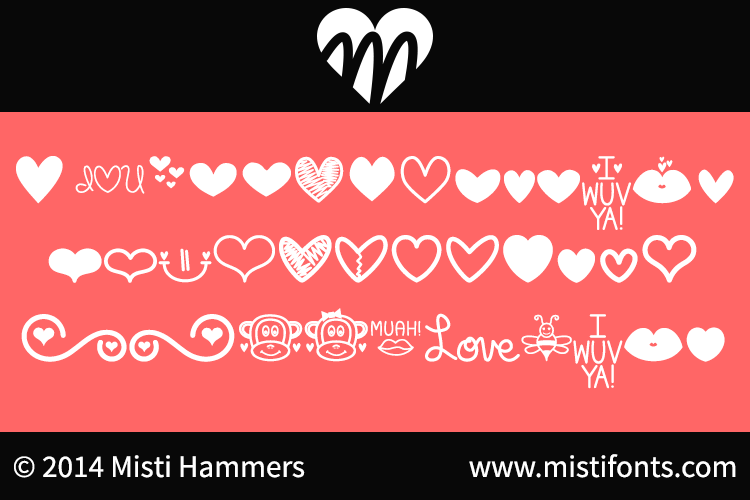
MF Love Dings by Misti's Fonts
Nice dingbat font for when Valentine’s Day rolls around.
Misti Hammers is a font designer in Germany who focuses on script, handwritten fonts.